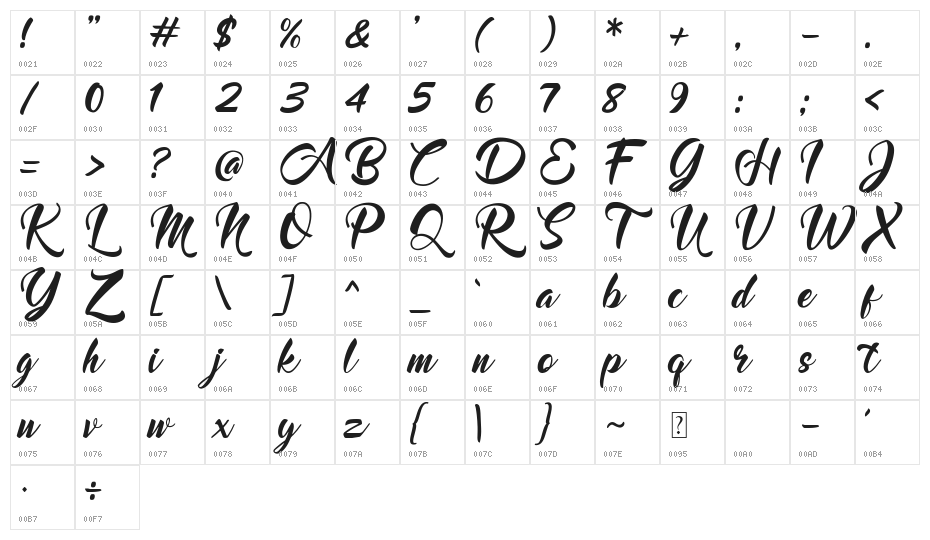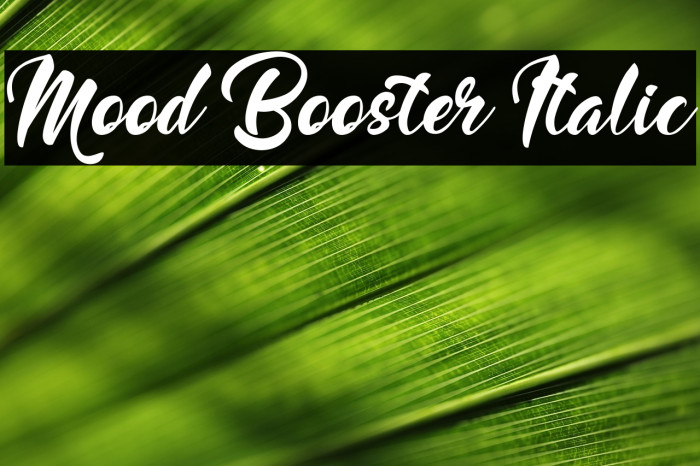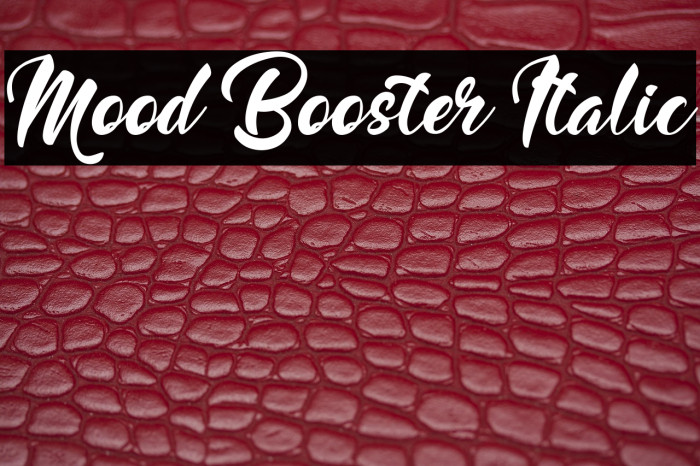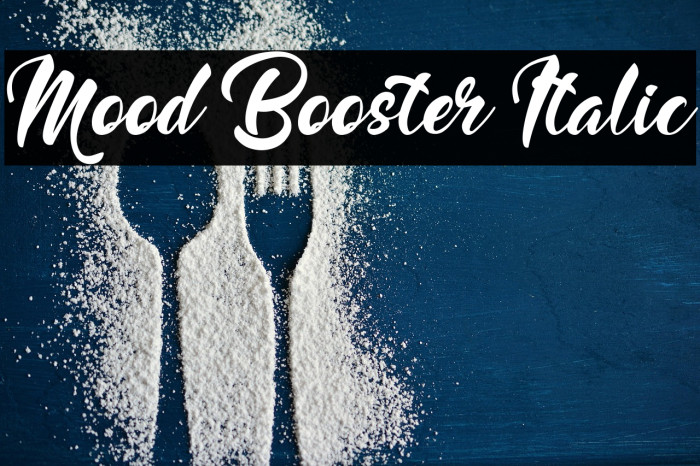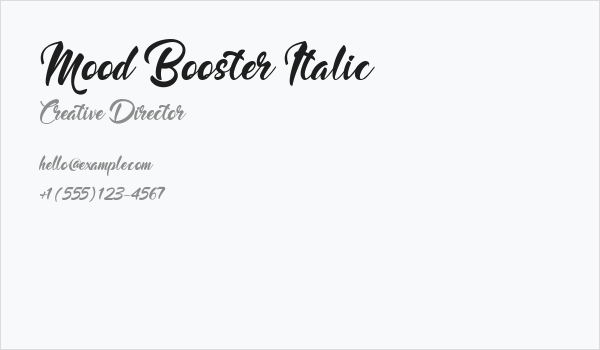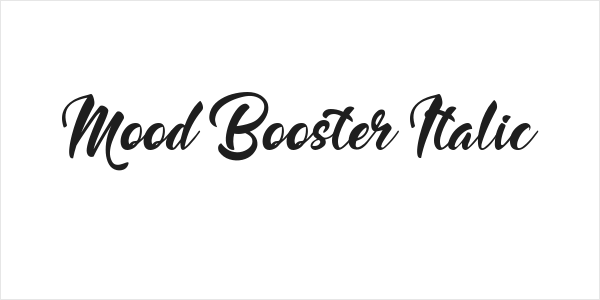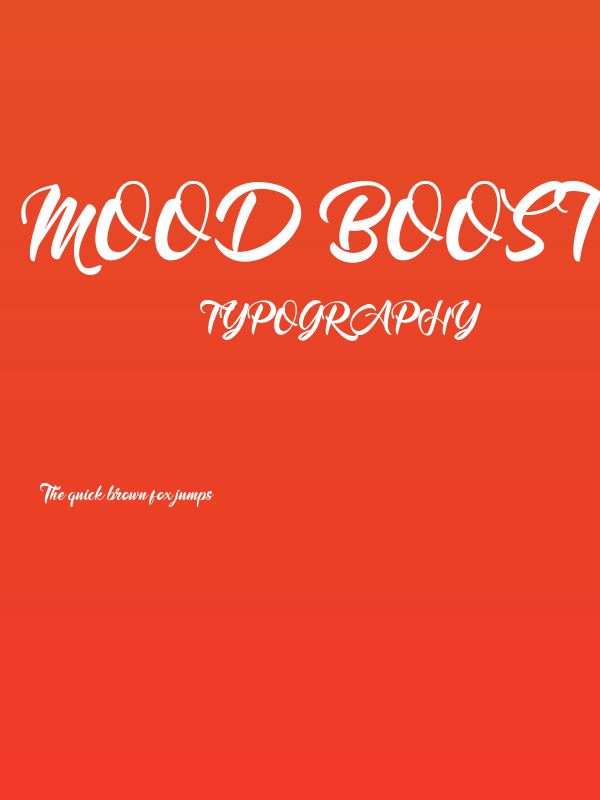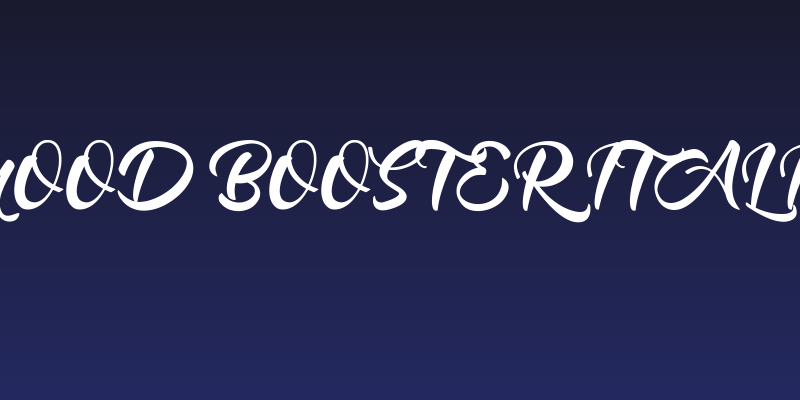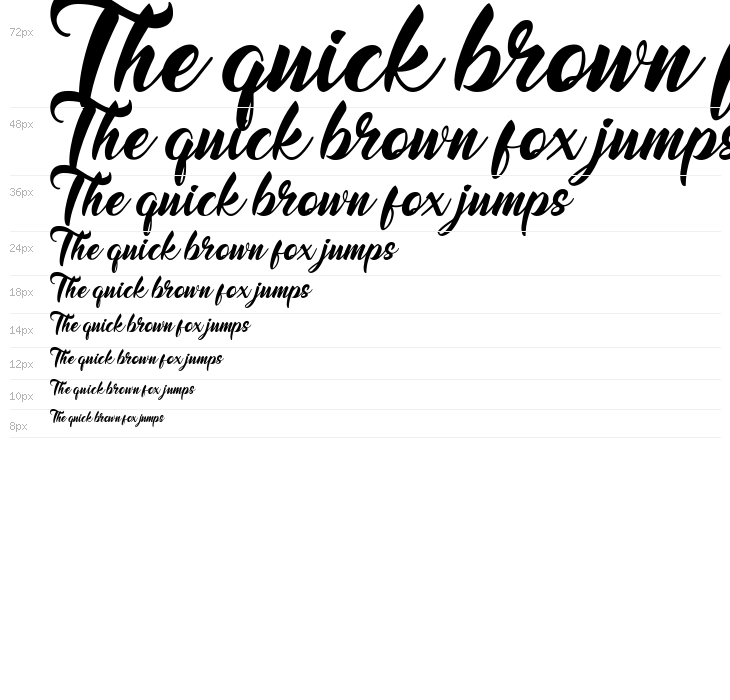
Mood Booster Italic Font
Mood Booster Italic Description
This font exudes a lively and energetic vibe with its flowing, cursive style. The letters are connected in a smooth, continuous manner, giving it a handwritten appearance. The uppercase letters are elegantly crafted with sweeping curves, while the lowercase letters maintain a consistent flow. The numbers are bold and clear, matching the overall style of the alphabet. Special characters are designed with the same fluidity, ensuring a cohesive look. The font's bold strokes and italic slant add a dynamic and expressive touch, making it suitable for projects that require a personal and artistic flair.